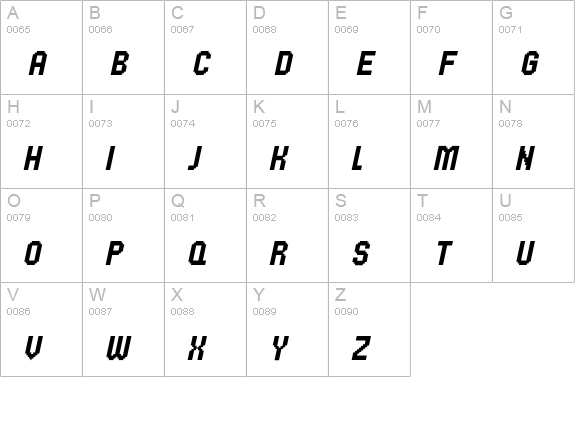
Introducing UNDA-BitmapItalic, a unique and eye-catching font that effortlessly combines the digital world with a touch of artistic flair. This one-of-a-kind font draws inspiration from the captivating world of pixel art, resulting in a vibrant and dynamic typeface that is sure to make a lasting impression. UNDA-BitmapItalic is the perfect choice for those seeking a font that seamlessly blends modernity with a hint of nostalgia. Its italicized design adds a touch of elegance and sophistication, making it ideal for various creative projects such as branding, logo design, posters, and more. Whether you're looking to add a playful twist to your designs or make a bold statement, this font will undoubtedly elevate your work to new heights. One of the most exceptional aspects of UNDA-BitmapItalic is that it is available completely free of charge. Yes, you read that right – this incredible font can be freely downloaded at FontsMarket.com, allowing designers, artists, and enthusiasts alike to access its unique features without any cost. This generous offering enables individuals to explore their creativity without any limitations, making UNDA-BitmapItalic a true gem in the world of typography. Crafted with precision and attention to detail, UNDA-BitmapItalic perfectly captures the essence of digital art while infusing it with a touch of artistic expression. Its carefully designed letterforms, each pixelated to perfection, create a mesmerizing visual experience that is bound to captivate audiences. Moreover, its versatility allows it to adapt seamlessly to a wide range of design styles, ensuring that it remains a valuable asset in any creative arsenal. So why wait? Don't miss out on the opportunity to enhance your designs with the unique charm and elegance of UNDA-BitmapItalic. Download this remarkable font for free today at FontsMarket.com and unlock a world of creative possibilities. Let your imagination run wild and watch as your designs come to life with this extraordinary font. UNDA-BitmapItalic is not just a font; it's a window into a world of limitless creativity.